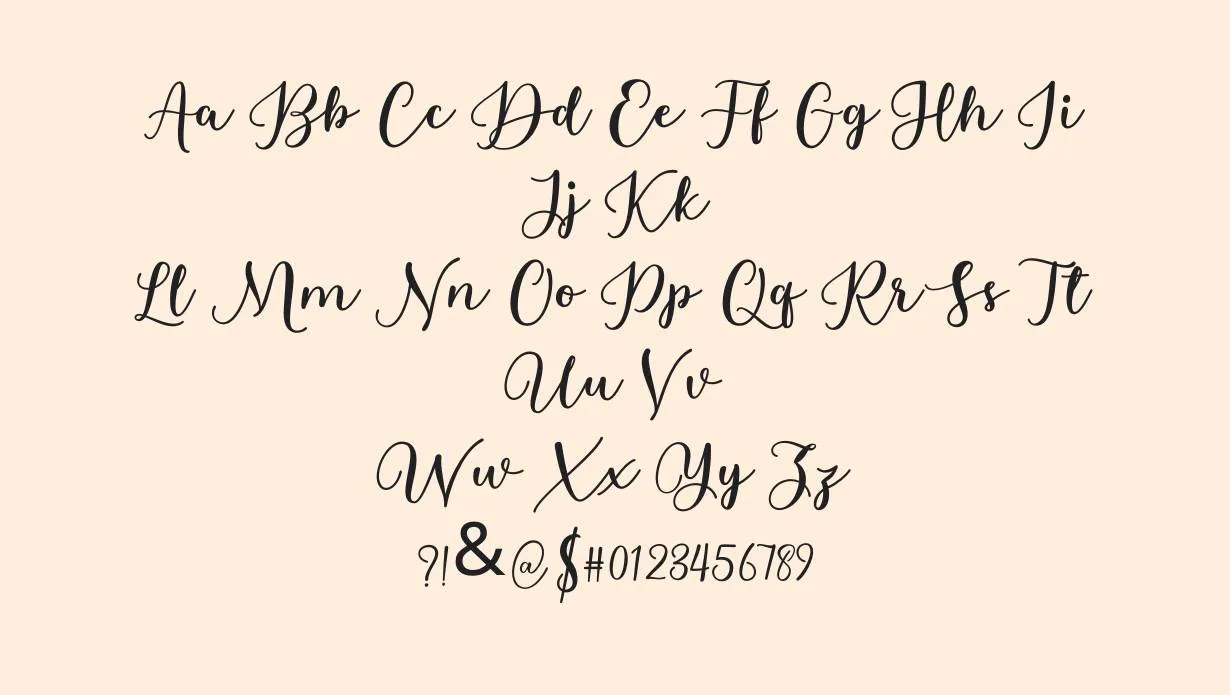
Estafet Font exudes a classic and timeless style, making it suitable for projects that aim to evoke a sense of tradition and elegance. With its well-proportioned letters and moderate weight, this font is ideal for formal documents, invitations, or any design where a refined and sophisticated appearance is desired.
The font’s technical details showcase meticulous craftsmanship, ensuring a polished and traditional look that stands the test of time.
Estafet Font’s design elements are carefully balanced, creating a sense of harmony and grace that enhances the overall visual impact. It is a font that speaks to enduring elegance, making it a reliable choice for projects that require a touch of timeless sophistication.